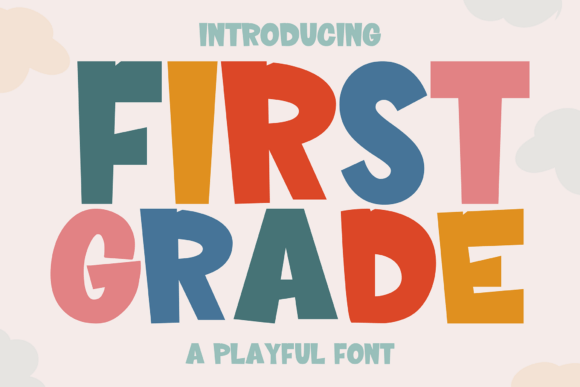
Introducing First Grade Font: A Playful Back-to-School Font
Are you looking for a font that captures the essence of childhood and learning? Look no further than the First Grade font, a bold and cheerful display font that’s perfect for school-themed projects. With its quirky, slightly imperfect letterforms and friendly vibe, this font brings a handmade, childlike warmth to your work.
Key Features of First Grade Font
- Bold and Cheerful Design: The First Grade font is designed to radiate fun, creativity, and nostalgia, making it ideal for back-to-school graphics, classroom decor, children’s books, educational worksheets, and playful greeting cards.
- Quirky and Imperfect Letterforms: The font’s quirky, slightly imperfect letterforms give it a unique and playful charm that’s reminiscent of handwriting from a child’s first year of school.
- Handmade and Childlike Warmth: The First Grade font brings a handmade, childlike warmth to your work, making it perfect for designs that require a personal touch.
10 Creative Ways to Use First Grade Font
- Back-to-School Graphics: Use the First Grade font to create eye-catching back-to-school graphics, including posters, flyers, and social media posts.
- Classroom Decor: Add a touch of personality to your classroom decor with the First Grade font, perfect for bulletin boards, wall art, and educational displays.
- Children’s Books: Bring your children’s book to life with the First Grade font, ideal for titles, headings, and body text.
- Educational Worksheets: Make learning fun with the First Grade font, perfect for creating engaging educational worksheets and activity sheets.
- Playful Greeting Cards: Use the First Grade font to create playful greeting cards for special occasions, including Mother’s Day, Valentine’s Day, and birthdays.
- School Events: Promote your school events with the First Grade font, ideal for posters, flyers, and social media posts.
- DIY Crafts: Use the First Grade font to create custom DIY crafts, including iron-on designs, stickers, and stencils.
- Party Invitations: Create fun and playful party invitations with the First Grade font, perfect for birthday parties, school events, and other celebrations.
- Signs and Banners: Use the First Grade font to create eye-catching signs and banners for school events, classroom decor, and DIY projects.
- Digital Designs: Use the First Grade font in your digital designs, including social media graphics, blog posts, and website headers.
The Benefits of Using First Grade Font
The First Grade font offers a range of benefits for designers, educators, and DIY enthusiasts. With its playful and cheerful design, this font is sure to:
- Add a Touch of Personality: The First Grade font adds a touch of personality to your designs, making them stand out from the crowd.
- Create a Fun and Engaging Atmosphere: The font’s playful design creates a fun and engaging atmosphere, perfect for educational settings, children’s books, and playful greeting cards.
- Make Your Text Pop: The font’s bold and cheerful design makes your text pop with joy and personality, grabbing the attention of your audience.
Tips and Tricks for Using First Grade Font
To get the most out of the First Grade font, here are some tips and tricks to keep in mind:
- Experiment with Colors: The First Grade font looks great in a range of colors, so don’t be afraid to experiment and find the perfect hue for your design.
- Mix and Match Fonts: Combine the First Grade font with other fonts to create a unique and visually appealing design.
- Use it for Headings and Titles: The First Grade font is perfect for headings and titles, adding a touch of personality to your text.
- Make it Your Own: Don’t be afraid to get creative and make the First Grade font your own, experimenting with different styles, colors, and effects.
The First Grade font is a playful and cheerful display font that’s perfect for school-themed projects. With its quirky, slightly imperfect letterforms and friendly vibe, this font brings a handmade, childlike warmth to your work. Whether you’re designing for back-to-school graphics, classroom decor, children’s books, or playful greeting cards, the First Grade font is sure to make your text pop with joy and personality.